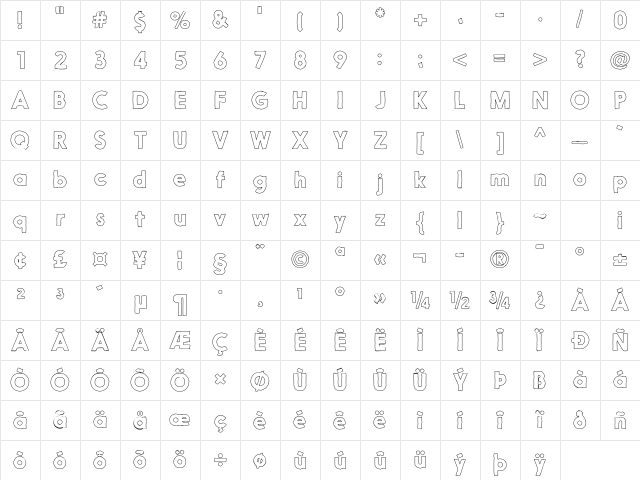
Complete Nanami HM Outline Black glyph index. Displaying only characters natively supported by Nanami HM Outline Black font.
Nanami HM Outline is built around its visual character rather than neutral utility - its distinctive forms are designed to make an impression at display sizes.
Font Pairing: Pair with a clean neutral sans-serif for body copy to let Nanami HM Outline's character lead without overwhelming the composition.
Pro Tip: Use Nanami HM Outline exclusively at display sizes - it was designed to be seen, not read at length. Let a neutral companion handle body copy.